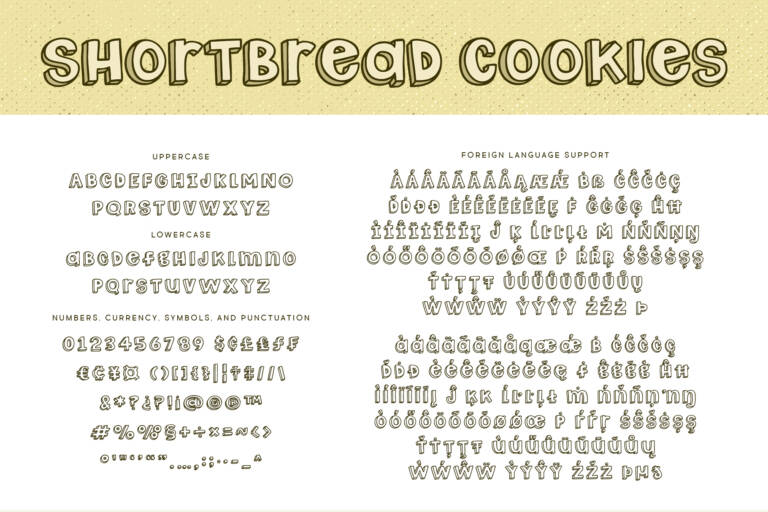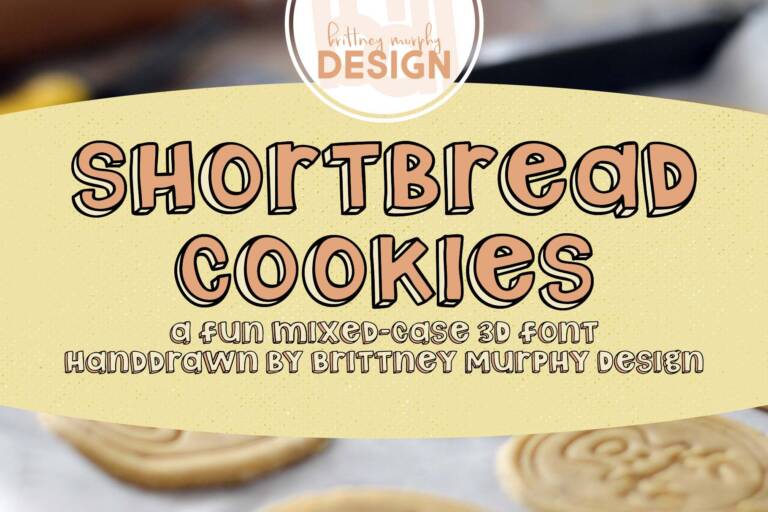
Shortbread Cookies Font
The Shortbread Cookies font is a fun mixed-case 3D font handdrawn by Brittney Murphy Design. Its playful imperfections give it a friendly, homemade look perfect for kids’ projects, Christmas decor, or DIY crafts. Since it’s mixed-case, you can switch back and forth between upper and lowercase as you wish to give it a customized look. Color in the background to make it pop even more in all your designs!